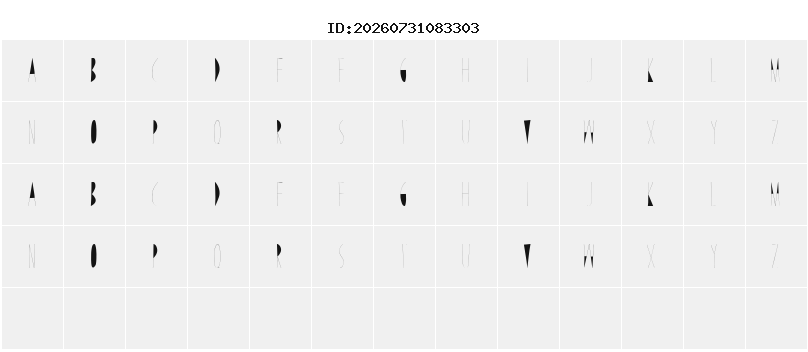
About Line and Draw.ttf
Line and Draw.ttf is a modern, elegant sans-serif font designed for ultimate readability and visual harmony. Perfect for branding, headlines, web design, and print materials.